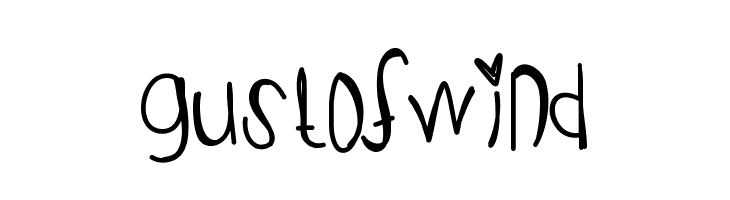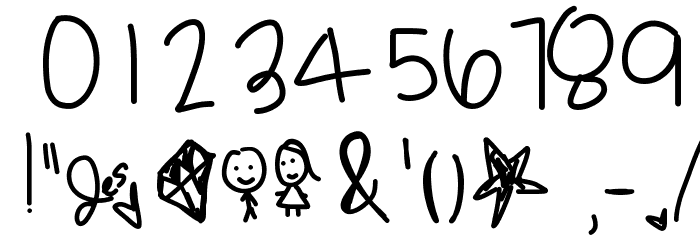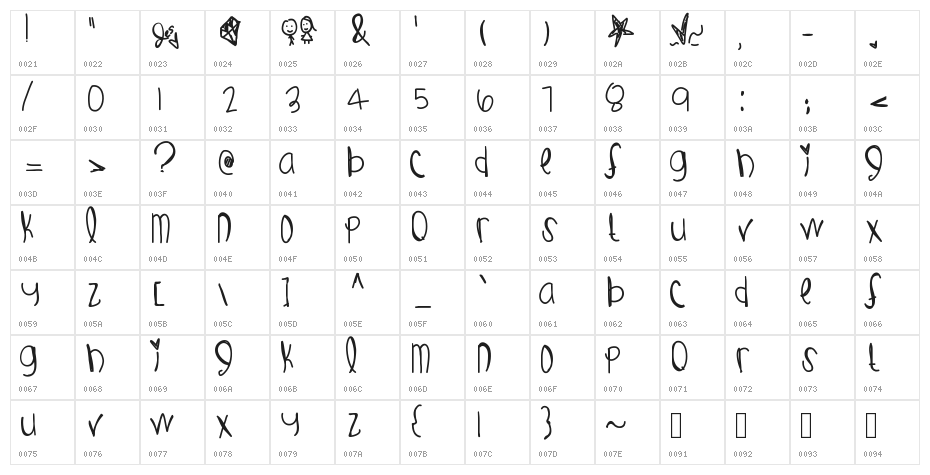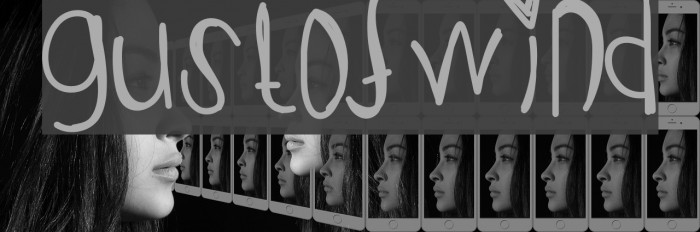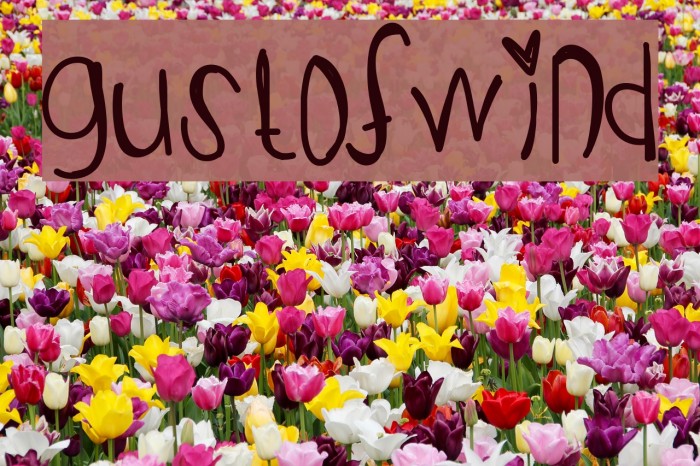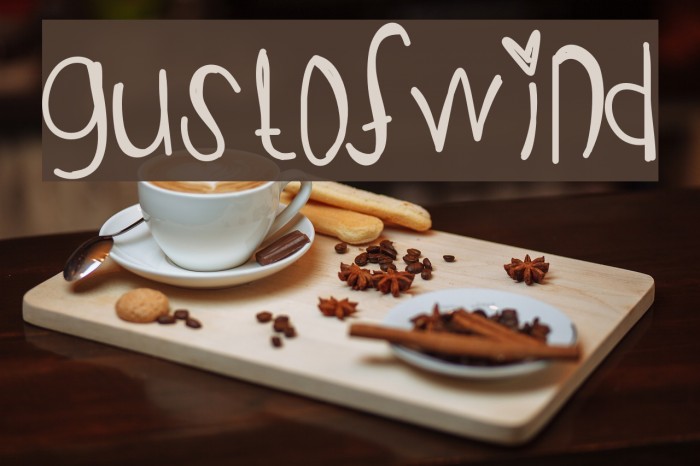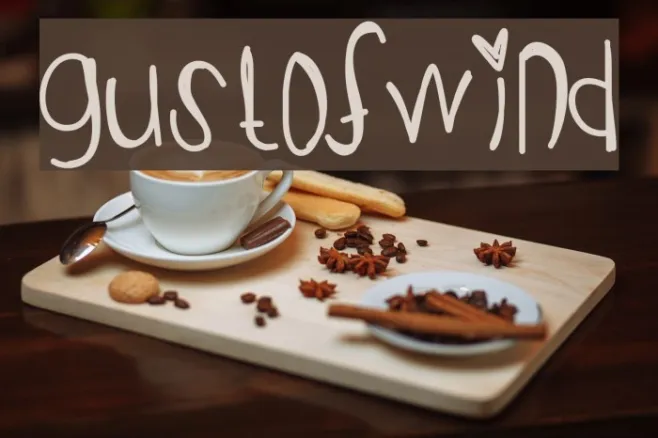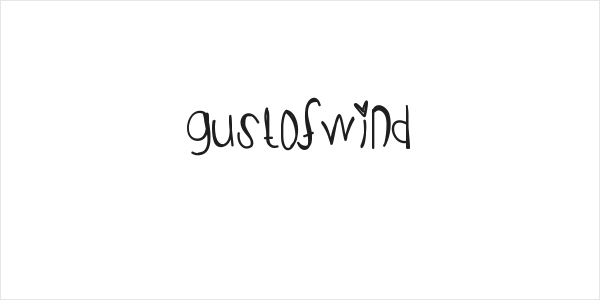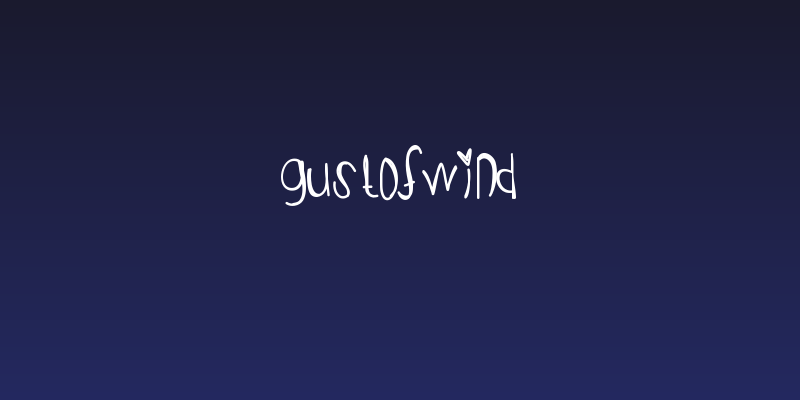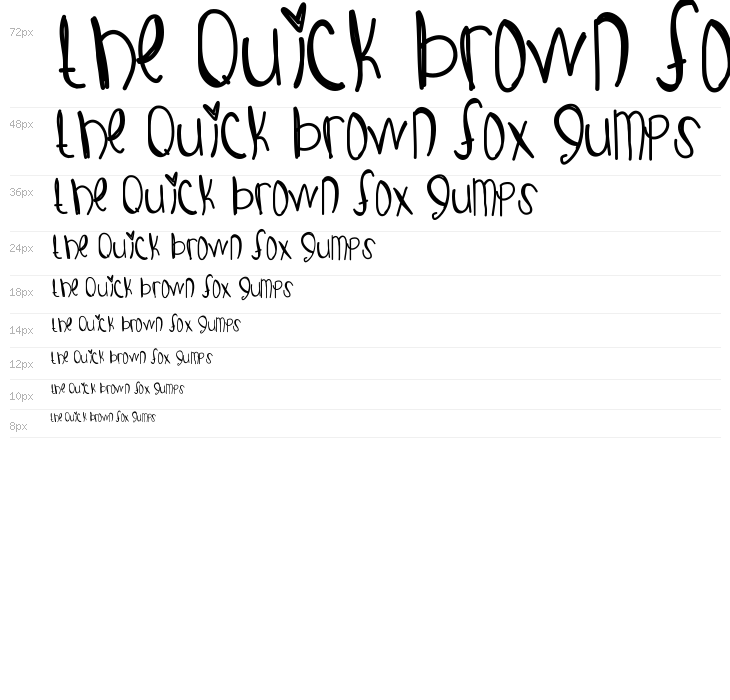
GustOfWind Font
GustOfWind Description
This playful and whimsical font features a handwritten style with a unique charm. Each character is crafted with a casual, flowing stroke, giving it a lively and friendly appearance. The letters are slightly irregular, adding to the hand-drawn aesthetic. The font includes both uppercase and lowercase letters, numerals, and a variety of special characters, each maintaining the same playful style. The strokes are consistent in width, providing a uniform look across all characters. This font is perfect for projects that require a personal touch or a creative flair.
| Proposed Projects | Ideal for children's books, greeting cards, playful branding, and DIY projects. |